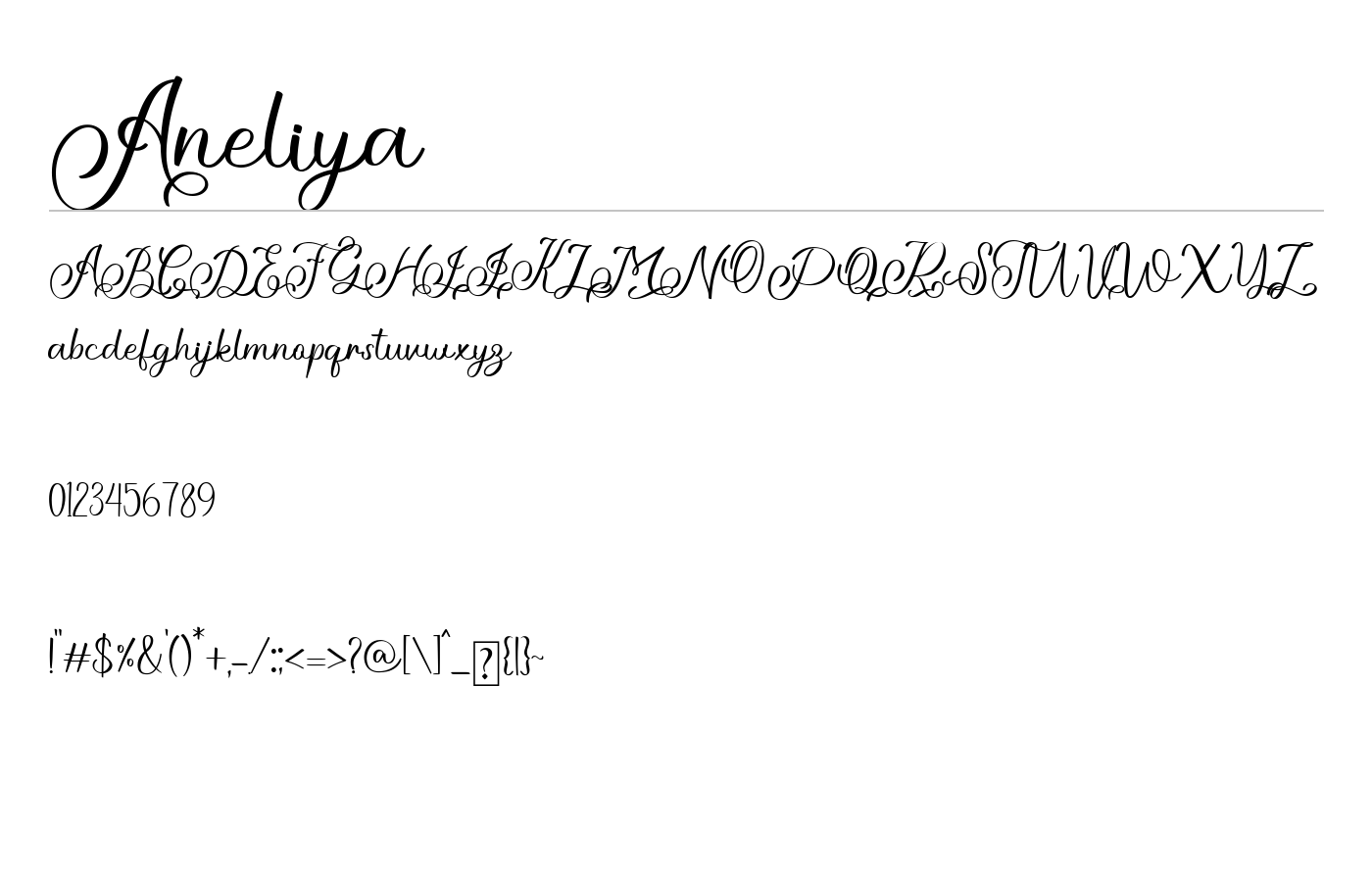
Aneliya is an elegant script font characterized by its graceful, flowing strokes and refined, thin lines that create a delicate, sophisticated feel. With its ornate uppercase letters and smooth lowercase forms, it suits luxury branding, invitations, and feminine design projects where a touch of classic charm and elegance is desired. This font works best for headlines or decorative text, adding a stylish and artistic flair to any creative work.
Aneliya Font
About Aneliya Font